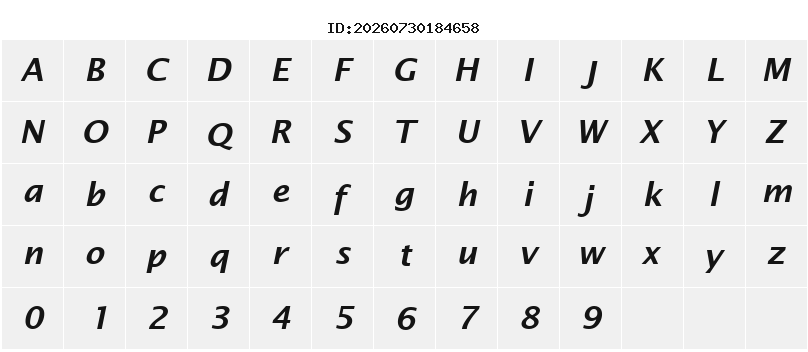
• Font Name: Lucida Sans
• Font Style: Demi-gras Italique
• Font ID: Lucida Sans Demibold Italic: B&H: 1991
• Full Font Name: Lucida Sans Demi-gras Italique
• PostScript Name: LucidaSans-DemiItalic
Lucida Sans.ttf is a modern, elegant sans-serif font designed for ultimate readability and visual harmony. Perfect for branding, headlines, web design, and print materials.